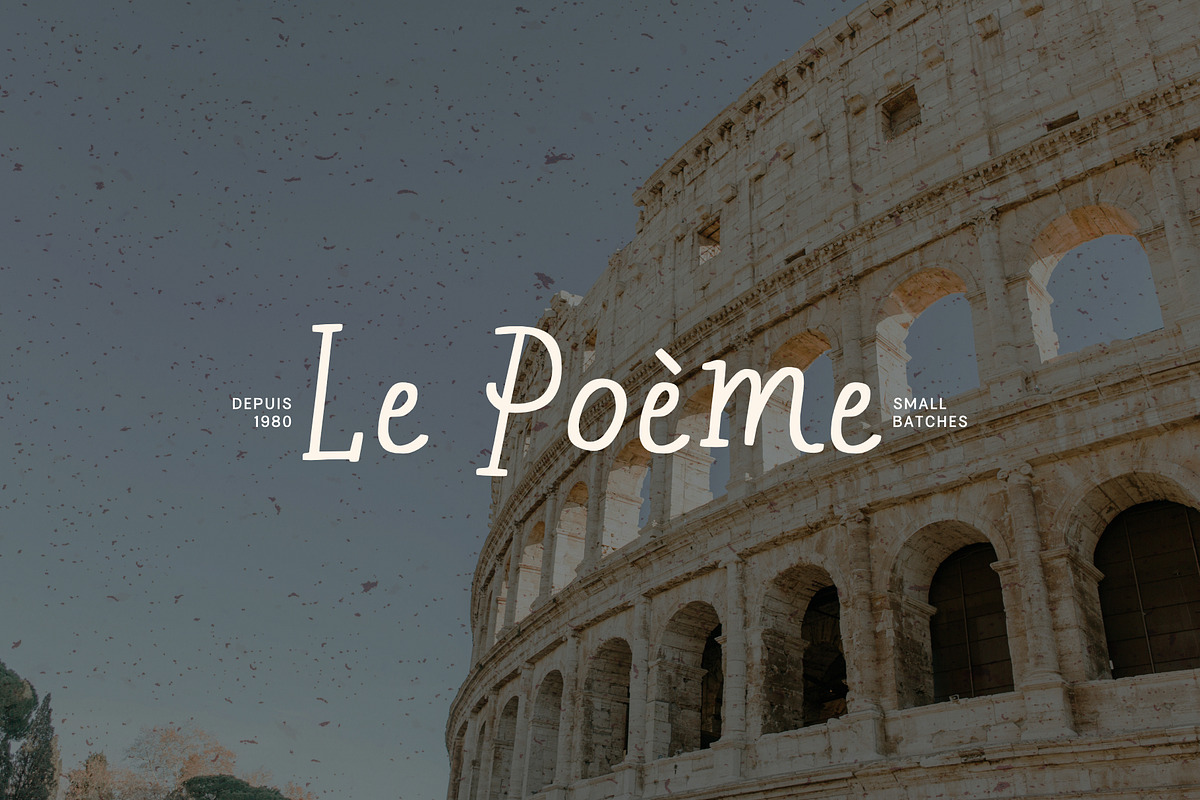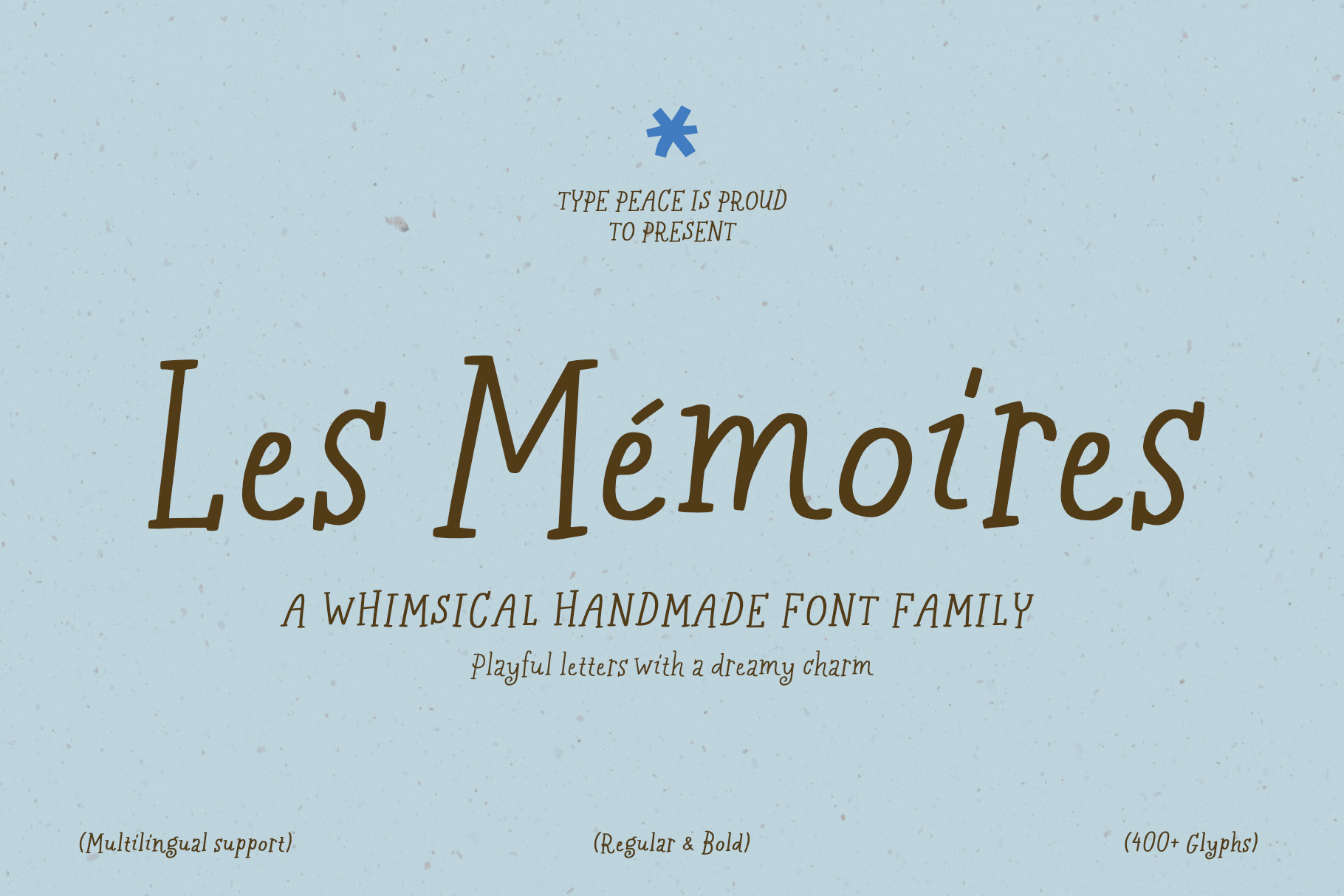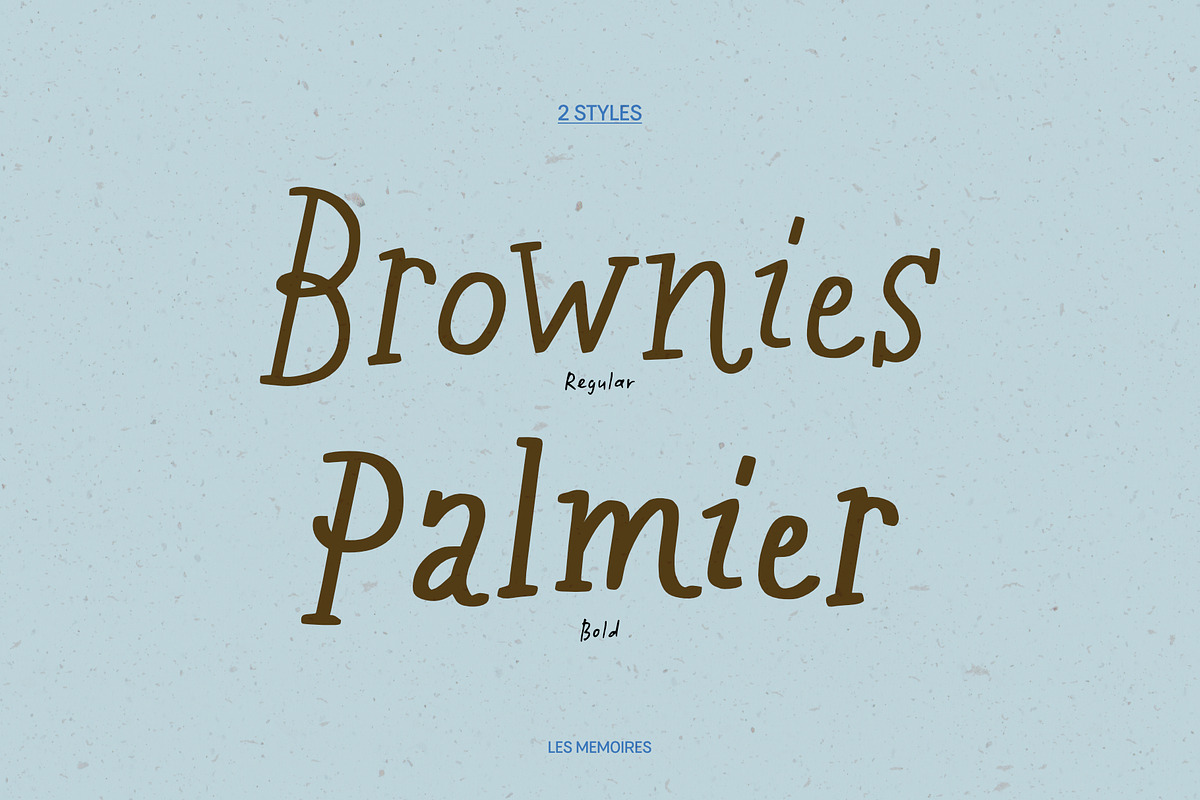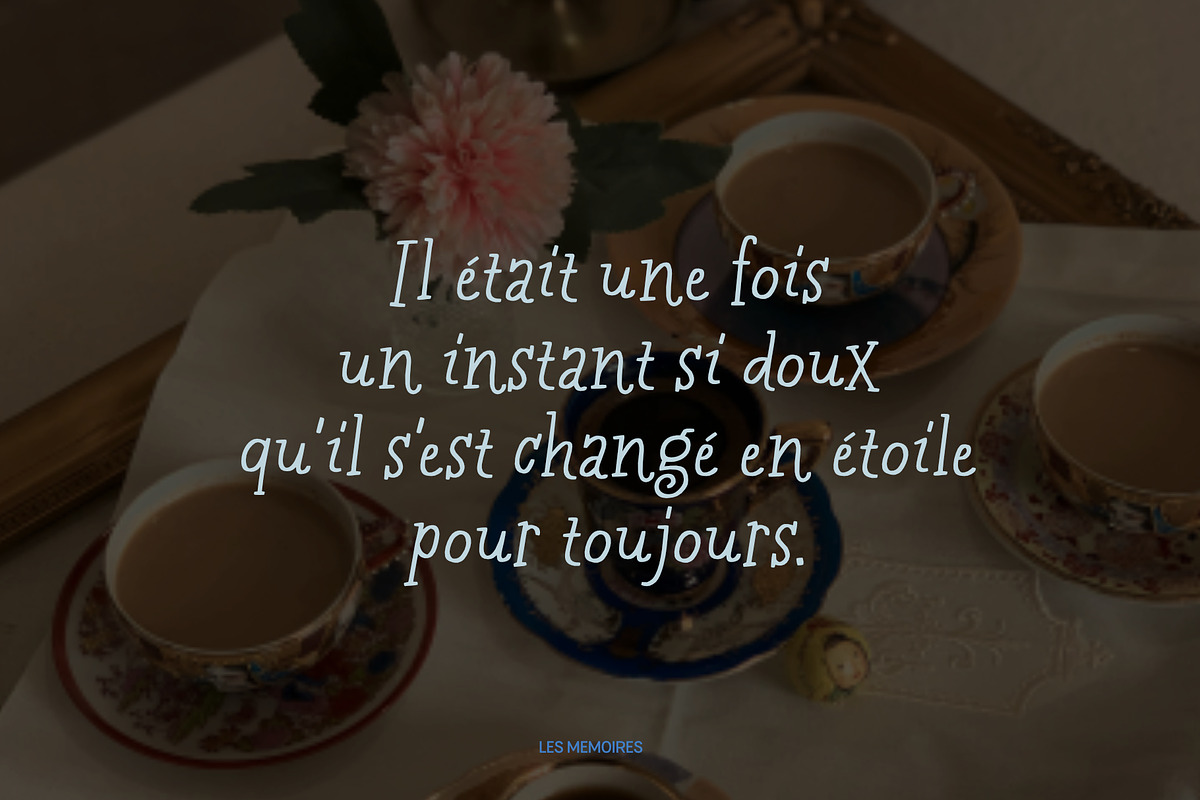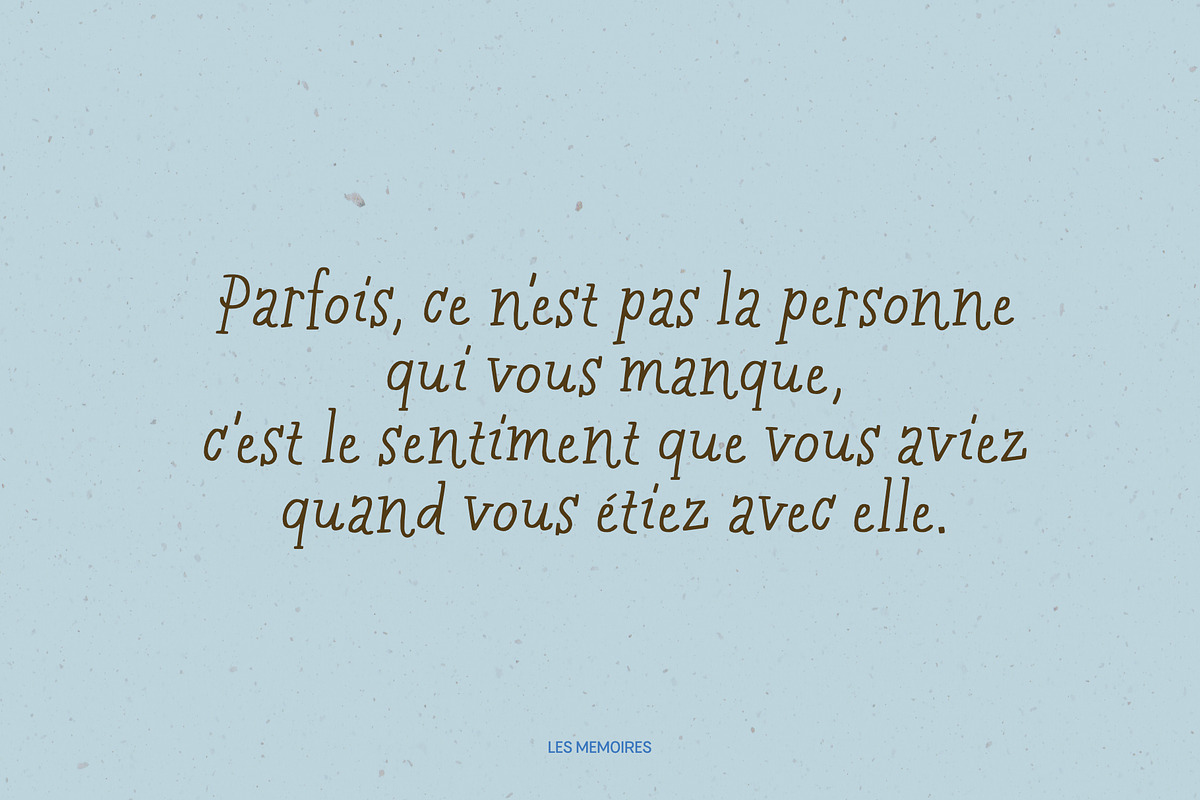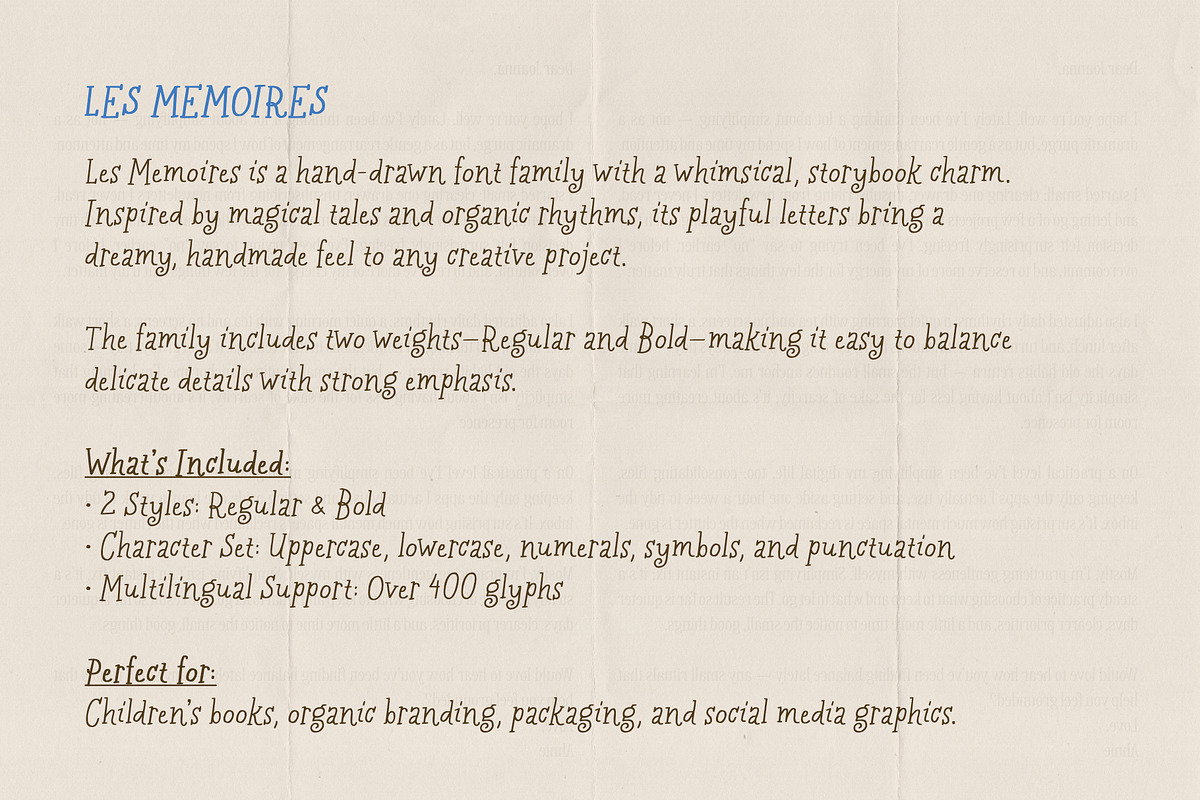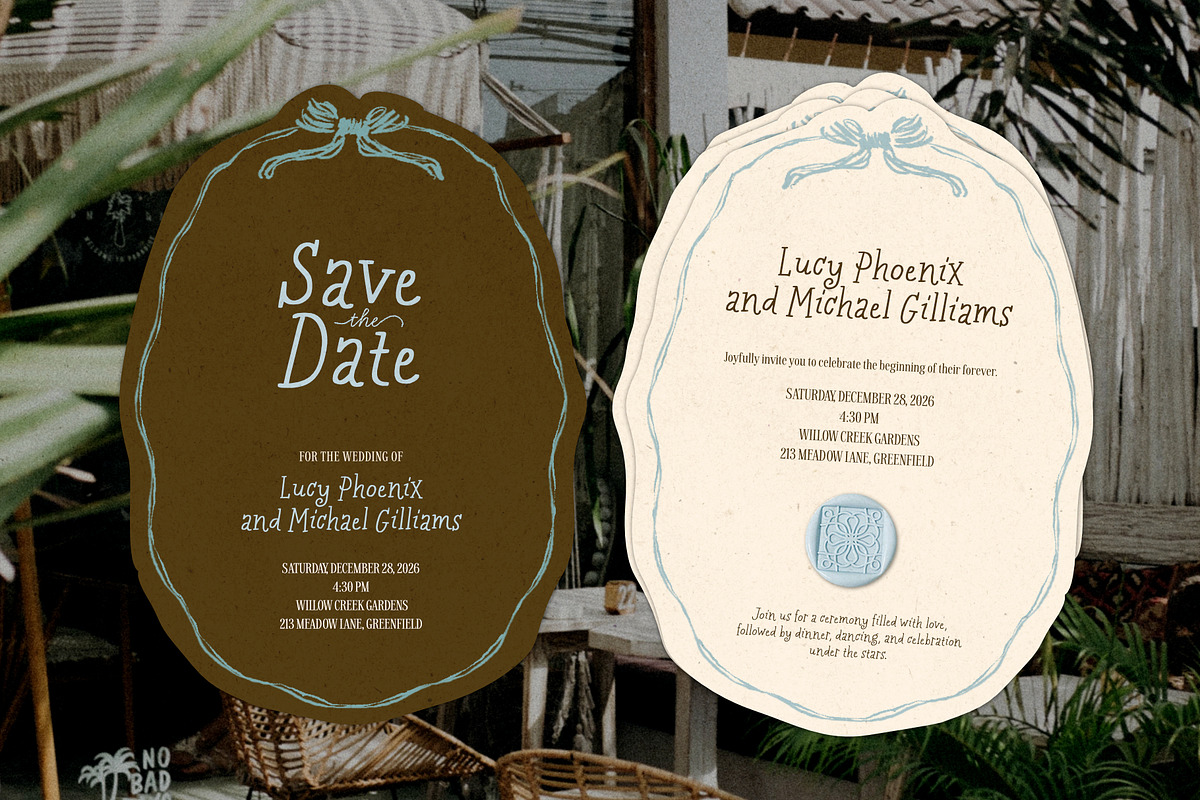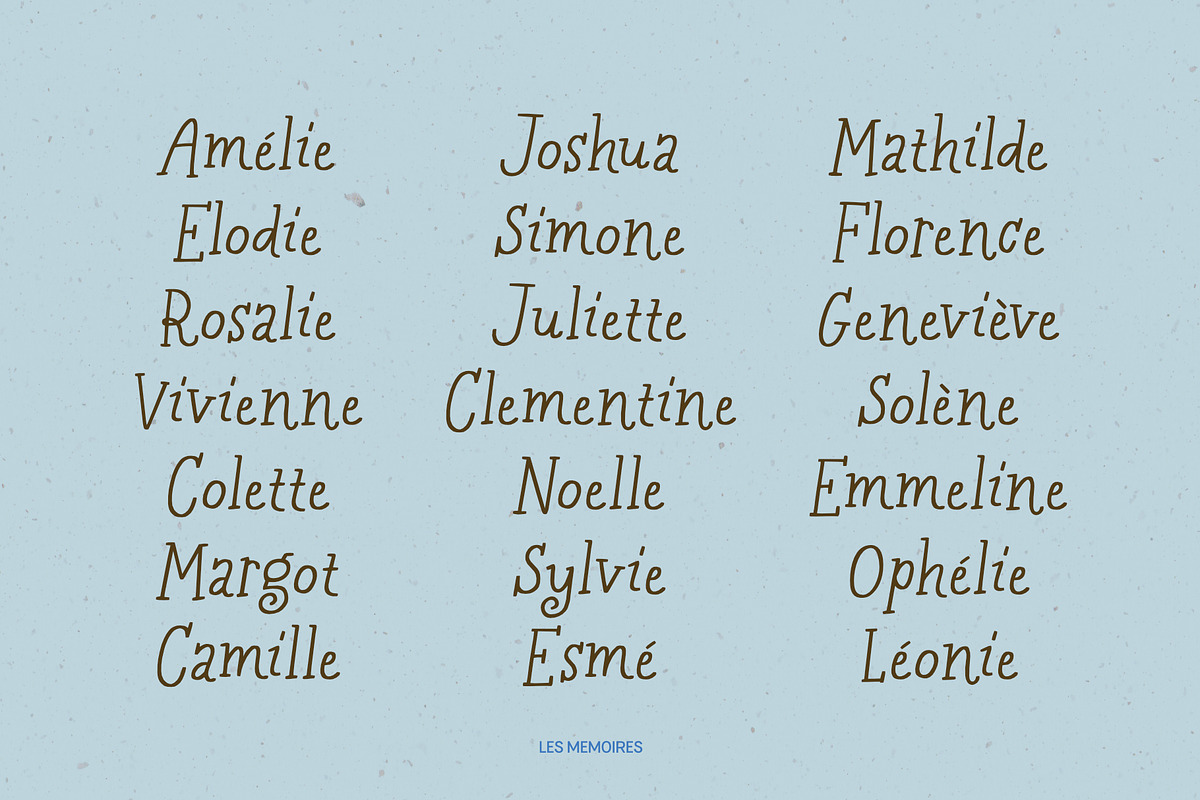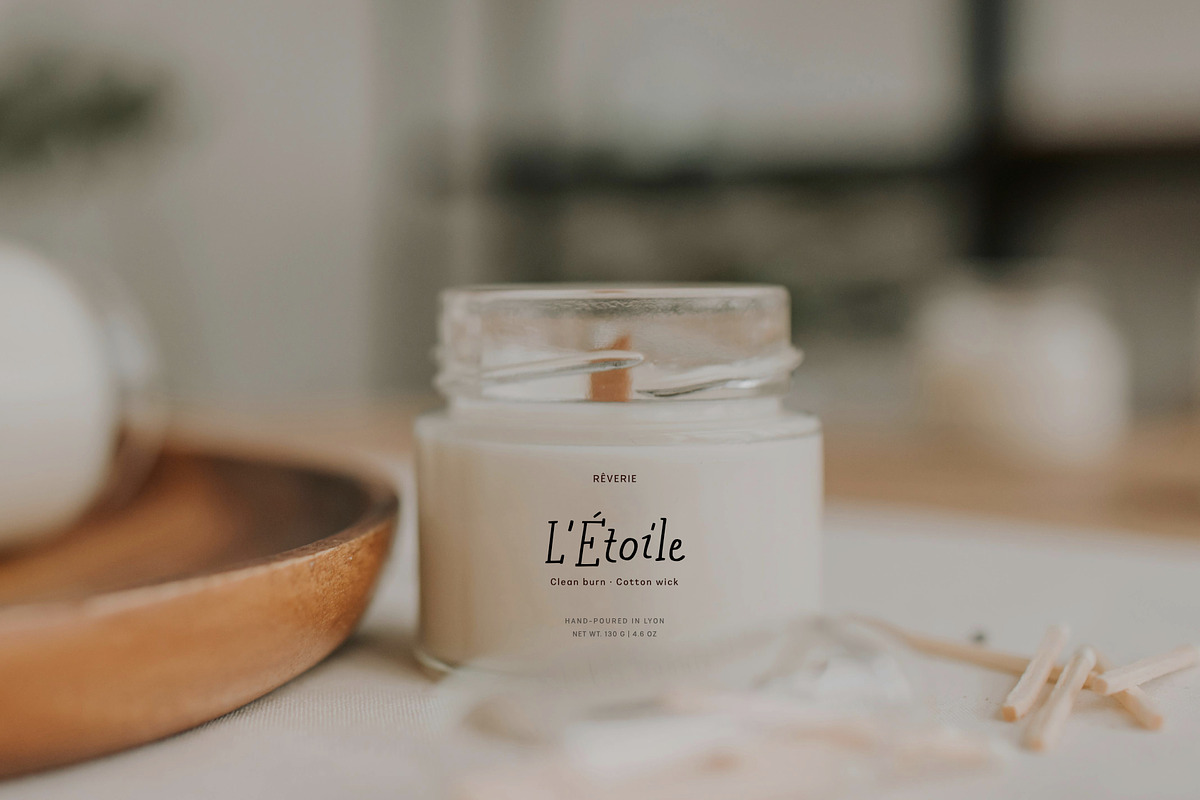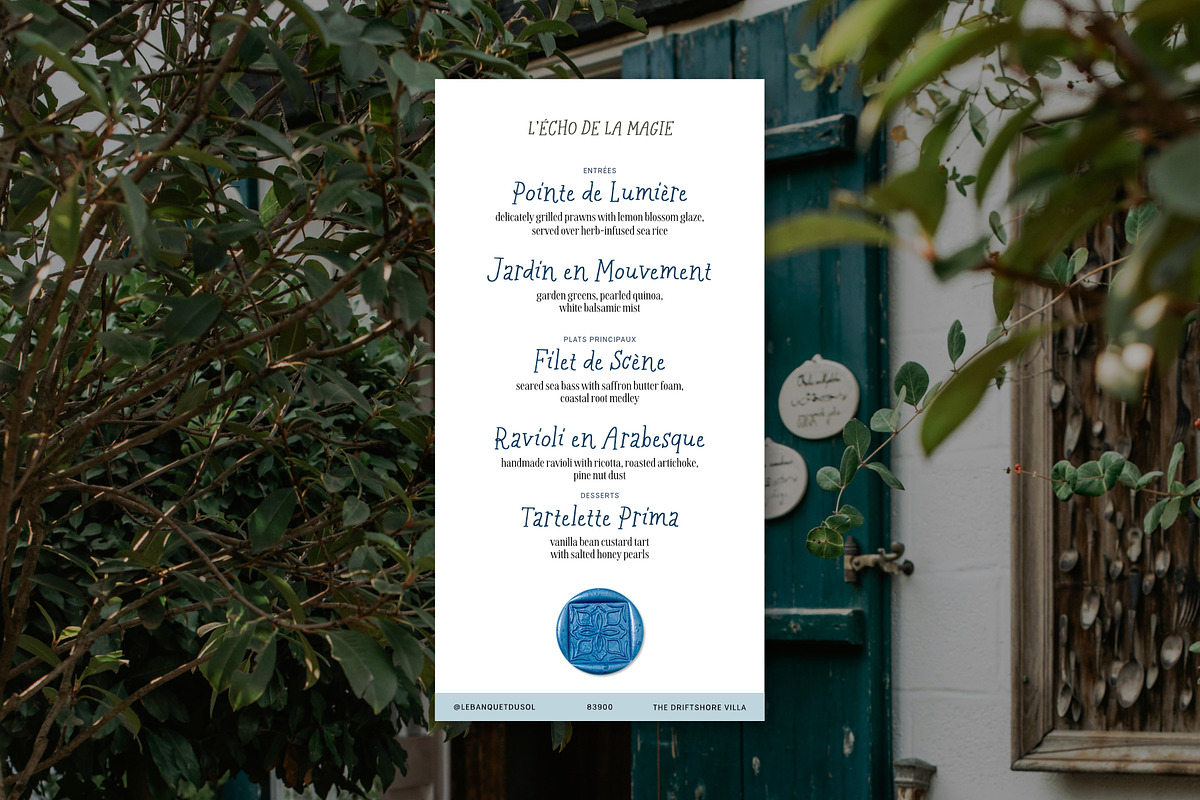
Les Memoires | Whimsical Font Family
Les Memoires is a hand-drawn font family with a whimsical, storybook charm. Inspired by magical tales and organic rhythms, its playful letters bring a dreamy, handmade feel to any creative project. The family includes two weights (Regular and Bold) making it easy to balance delicate details with strong emphasis.
Perfect for: Children’s books, organic branding, packaging, and social media graphics.
Two styles: Regular and Bold
Character Set: Uppercase, lowercase, numerals, symbols, and punctuation
Multilingual support with over 400 glyphs
Supported Languages: English, Western European, Central European, South Eastern European, Vietnamese and more.